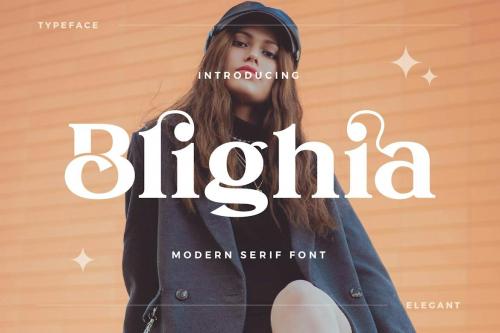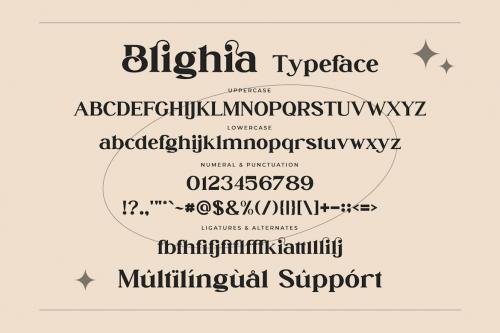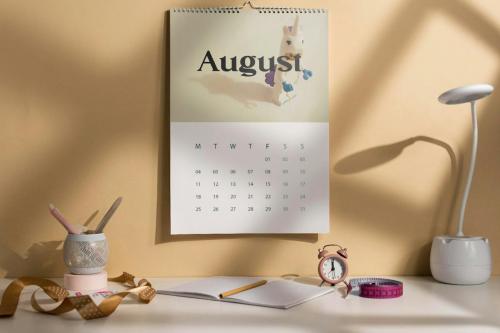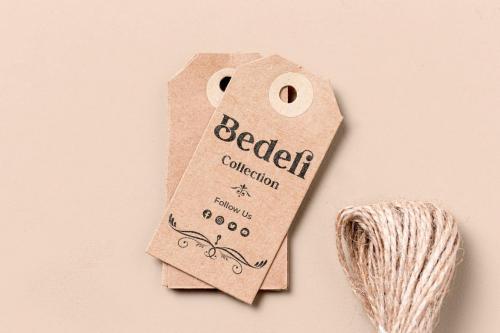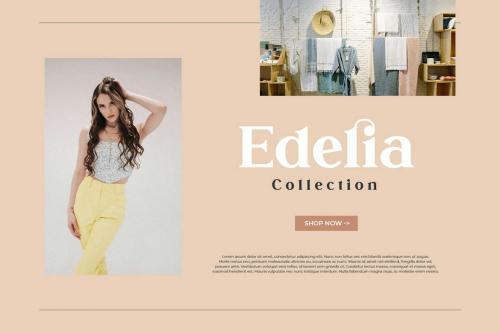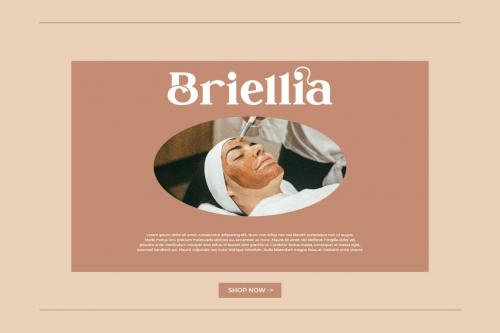
碧莉亚 - 精致联缀字体
Blighia - Stylish Ligature Font
Blighia Stylish Ligature Typeface, inspired by the famous minimalist logo perfect for the purposes of designing templates, brochures, videos, advertising branding, logos and more.
- Standard glyphs
- Ligatures
- International Accent